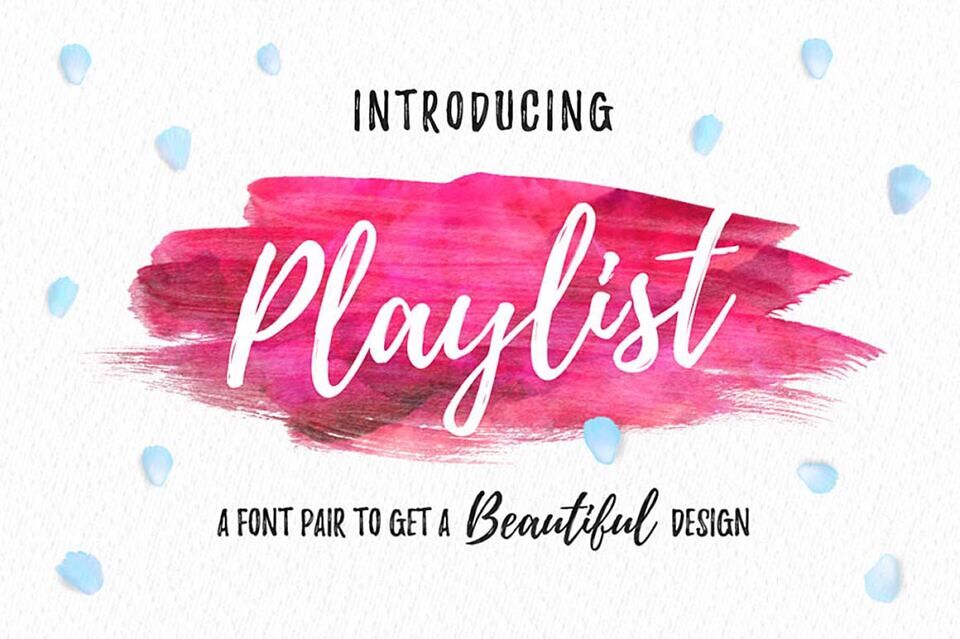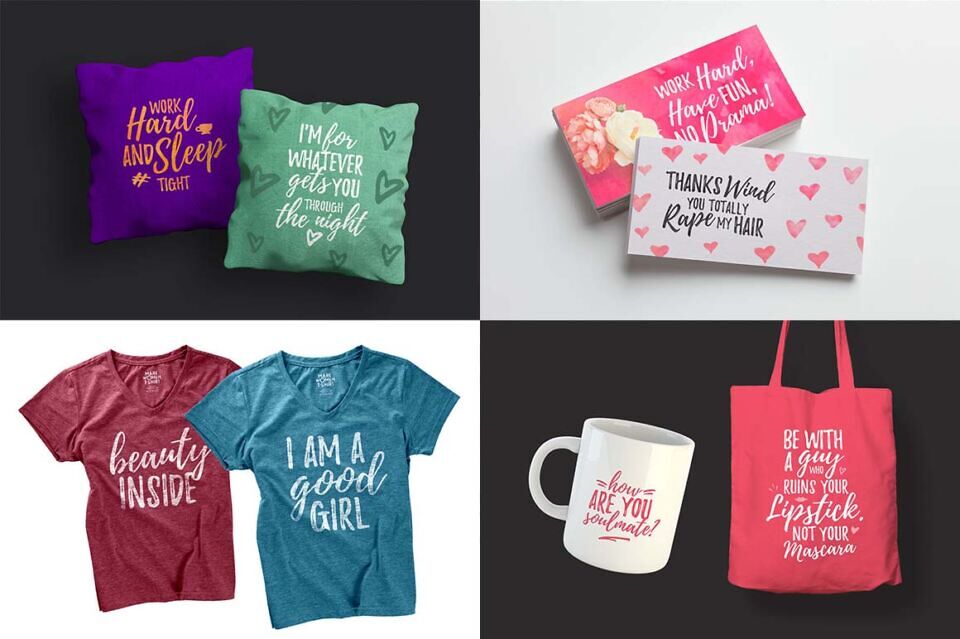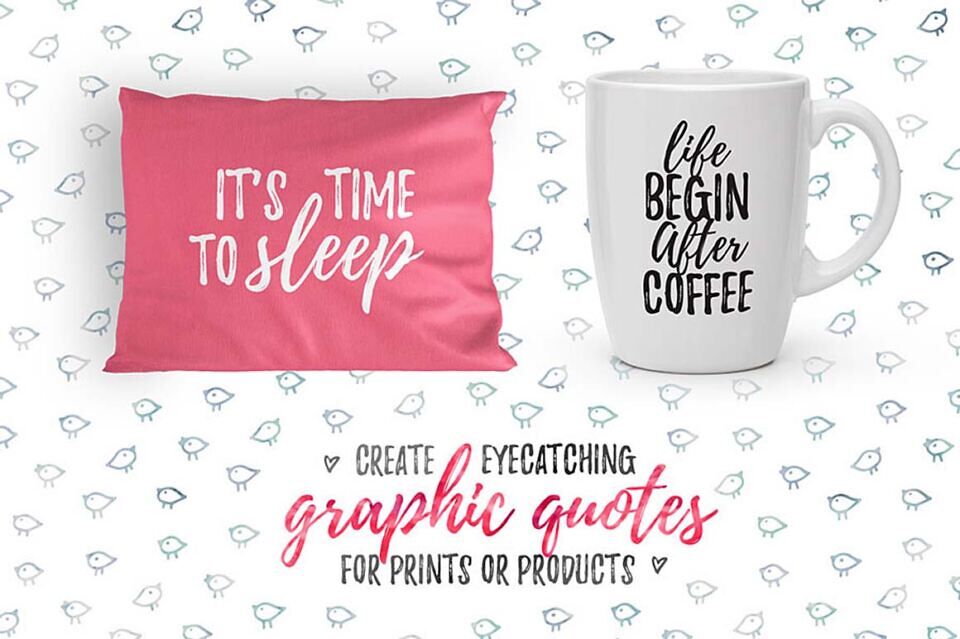
Playlist Font
Playlist Font is a versatile hand-drawn typeface featuring three distinct styles: Script, Caps, and Ornament. With its textured brush look and casual charm, Playlist Script adds a lively, handwritten touch to any design.
The Caps style offers bold, all-uppercase characters for strong visual impact, while the Ornament style includes stylish decorative elements to enhance compositions. Perfect for logos, posters, wedding invitations, and branding, the Playlist Font family allows for creative combinations across styles.